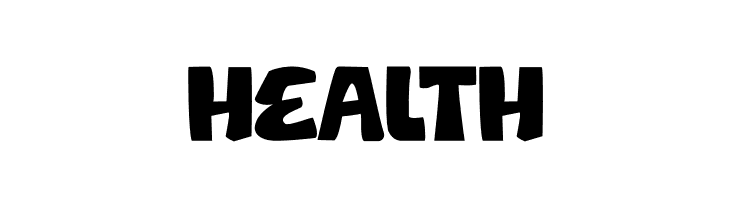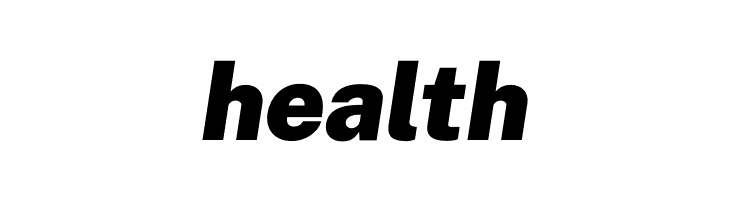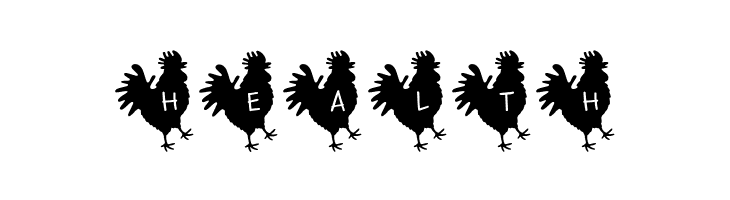
A bold, playful font with thick, rounded characters and a cartoonish style.
( Fonts by U.S. Web Design System )
A bold, italicized font with a modern and assertive style.
( Fonts by Display Studio )
A bold, dynamic font with a playful and energetic style.
( Fonts by Brittney Murphy Design )
A decorative font with characters embedded in rooster silhouettes.
( Fonts by HyFont Studio )
A modern, monospaced font with clean lines and excellent readability.
A bold, flowing script font with a modern and playful style.
A segmented, digital display-inspired font with a geometric and mechanical style.
A geometric, triangular pixel-style font with a modern digital aesthetic.
A bold, italicized font with a modern and assertive style.
A bold, geometric font with a modern and impactful style.